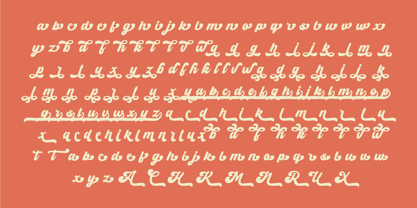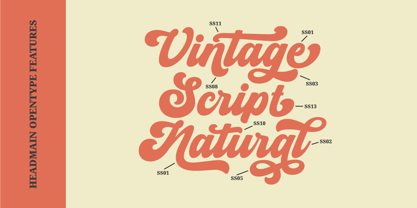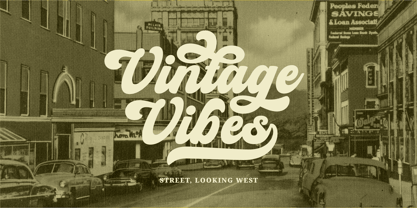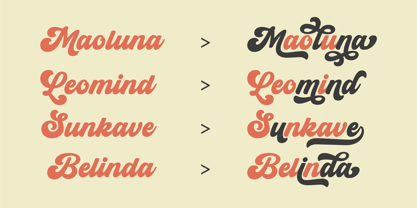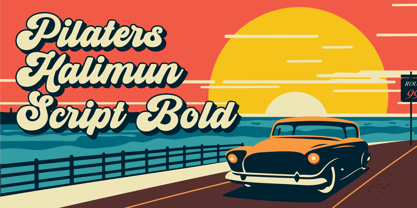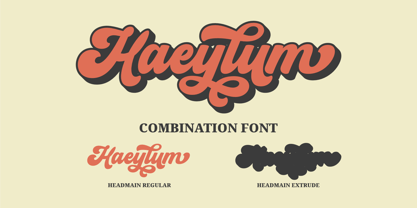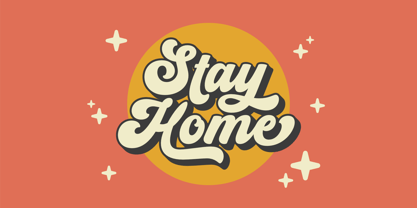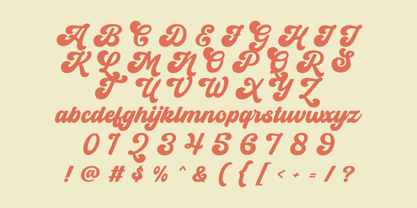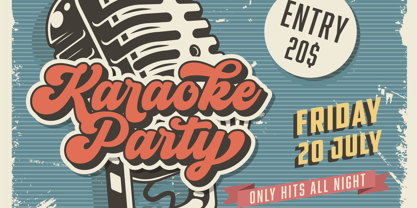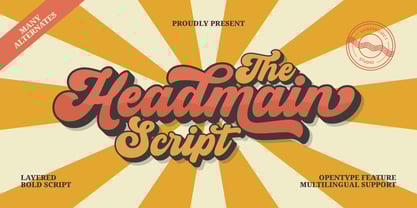
Headmain Script
by ahweproject
The Headmain Script Font Family was designed by Dida Ahluddin and published by ahweproject. Headmain Script contains 2 styles and family package options. More about this family
Headmain Script is a bold and dynamic layered script font with a strong retro vibe. Its fluid curves and thick strokes create a striking and energetic look, making it perfect for eye-catching headlines, branding, posters, and vintage-inspired designs. With multiple alternates and OpenType features, Headmain Script offers versatility and customization, allowing you to craft unique and expressive typography. The layered style enhances depth and impact, making it ideal for projects that require a bold yet stylish statement. Additionally, this font supports multiple languages, ensuring global usability.
Features :
• Uppercase & lowercase
• Numbers and punctuation
• Multilingual
• Alternates
Designers: Dida Ahluddin
Foundry: ahweproject